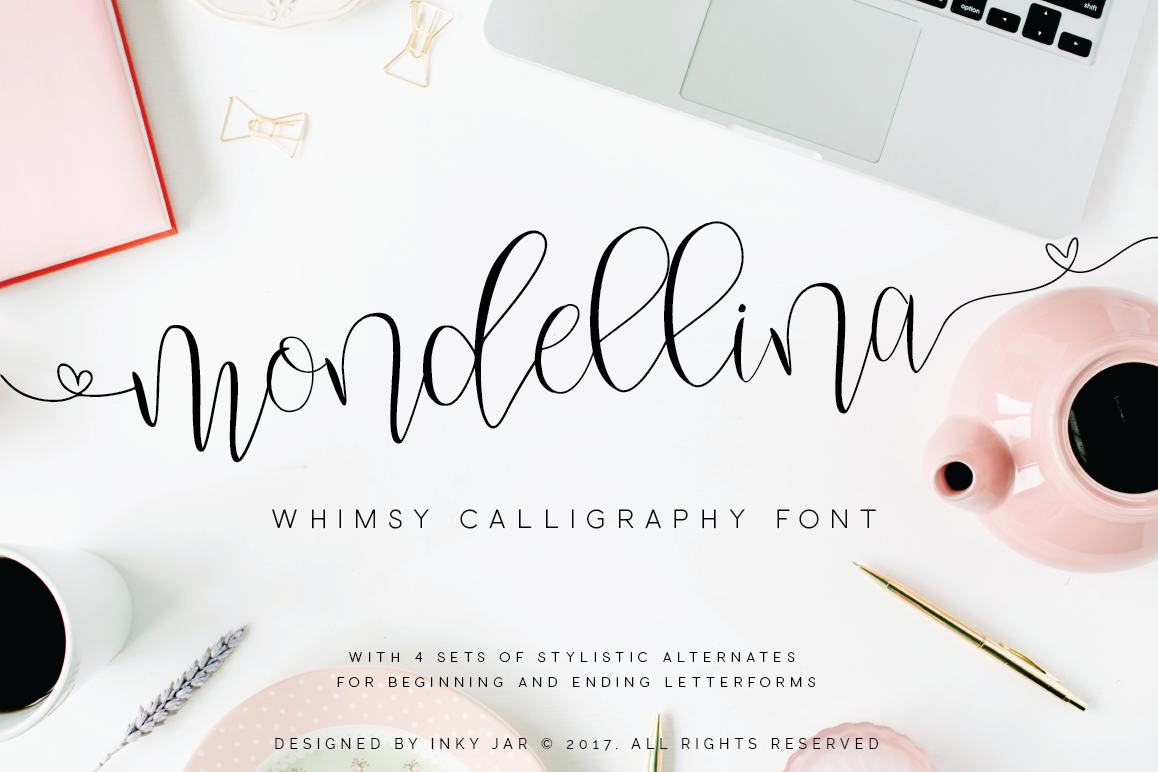
Mondellina Script
Mondellina Script is a whimsy, hand lettered calligraphy font with 467 glyphs. It has 4 sets of stylistic alternates of beginning and ending letterforms.As this font is perfect for feminine brands, I provided a set of 6 premade logo templates for you to use. You can use them for clients, just don't resell them as templates. You'll receive: